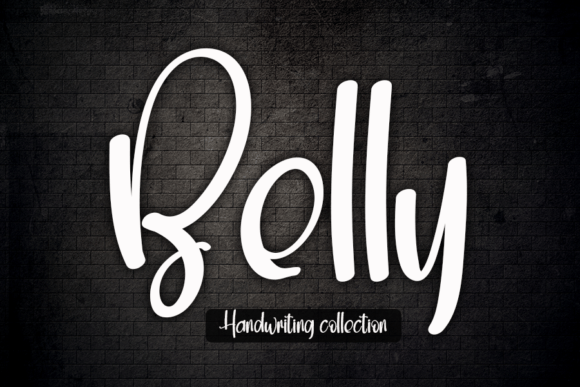
That’s where Belly Font comes in – a modern typeface designed to complement the artistic expression of visual creatives. With its clean lines and sleek aesthetic, Belly Font is the perfect companion for your photography branding, watermarking, and website design. By incorporating this versatile font into your workflow, you’ll elevate your visual storytelling and captivate your audience with captivating typography.
Belly Font Key Features
- Font Family: Belly Font offers a unique, handwritten font family with various styles, including Regular, Italic, Bold, and Bold Italic.
- Character Count: The font family includes a wide range of characters, including uppercase and lowercase letters, numbers, and punctuation marks.
- Unique Characteristics: The font’s handwritten style and irregular letterforms create a distinctive, cursive feel that sets it apart from other fonts.
Belly Font Review
Belly Font, designed by type designer, has an endearing, hand-drawn quality that immediately stands out. ✨ The font’s rounded edges and organic feel make it perfect for projects that need a touch of whimsy and personality. The numerous language support options available are also a major plus, making Belly Font an excellent choice for international branding and design projects.
The font’s unique characteristics are both its strength and weakness. While the rounded design gives Belly Font a friendly, approachable feel, it may not be suitable for projects that require a more formal or sophisticated tone. ⚠️ Additionally, some users have reported issues with the font’s weight, with the lightest weights feeling a bit too light and the heaviest weights feeling a bit too heavy.
Overall, Belly Font is a solid choice for designers looking for a friendly, approachable font. Its unique design and language support options make it a great option for branding and design projects that require a touch of personality.
Some key features to consider:
- Unique, hand-drawn design
- Organic, rounded edges
- Multiple language support options
- Available in a range of weights
- May not be suitable for formal or sophisticated projects
Belly Font Practical Application Guide
Tips for Getting the Most Out of Belly Font
Use Belly Font to create eye-catching headlines and titles.
Experiment with different font sizes and styles to add visual interest.
Combine Belly Font with other fonts to create a unique and dynamic visual effect.
Belly Font is ideal for:
Creative projects that require a unique and playful touch.
Branding and marketing materials that need to stand out.
Personal projects that showcase creativity and imagination.
Alternatives to Belly Font for Designers
Playfair Display is an elegant, luxurious serif font suitable for high-end branding, magazines, and invitations. It features intricate details and a classic feel, making it a great choice for designers who want to convey sophistication and refinement. Unlike Belly Font, Playfair Display is more formal and less playful.